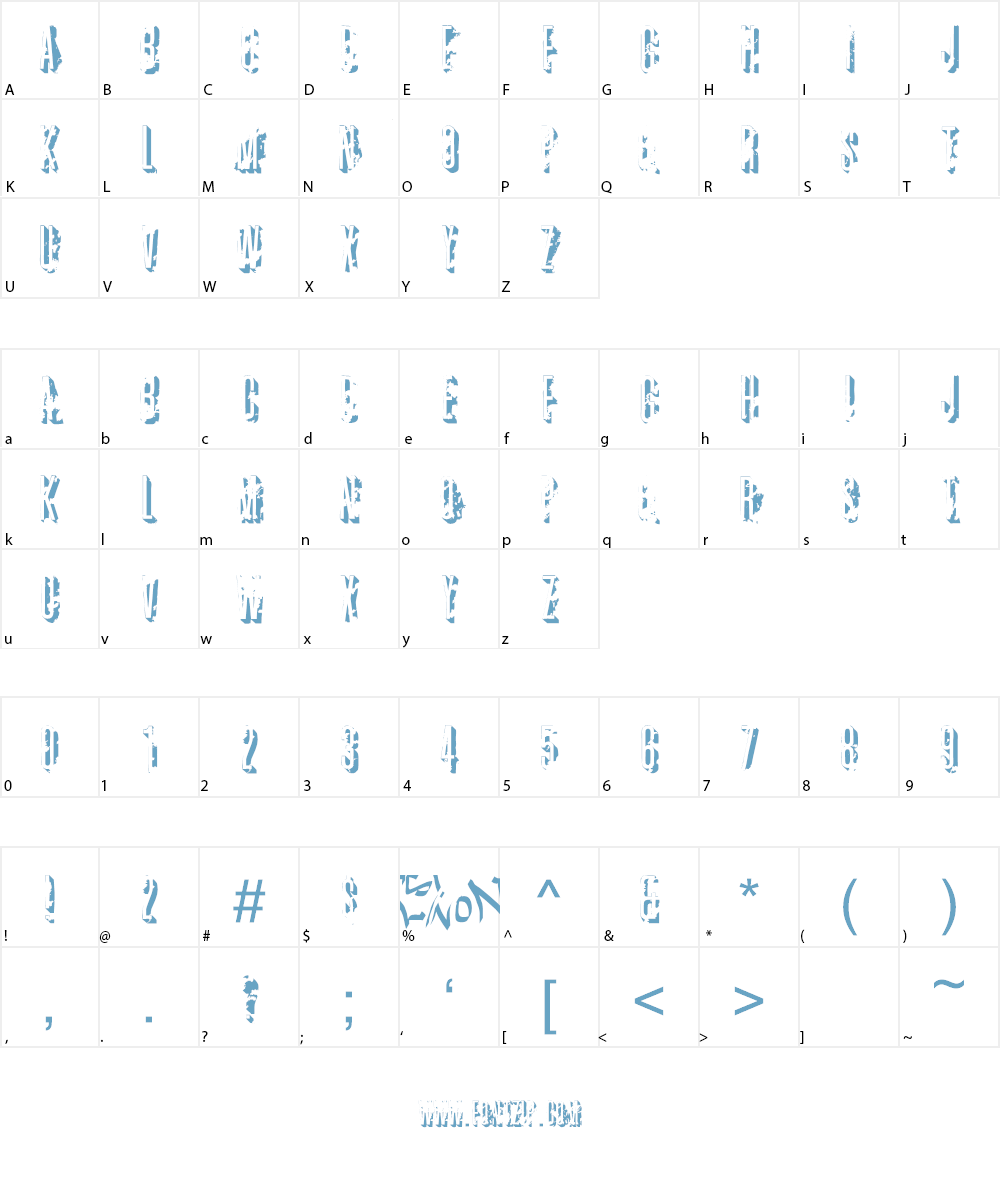
Originally this font was made for a poster anouncing a music concert.
As some might already have noticed it is based on Griffon. I messed
around with it in different graphic programs. Have fun with it!